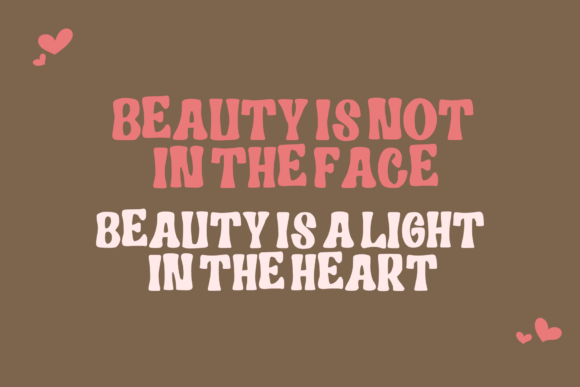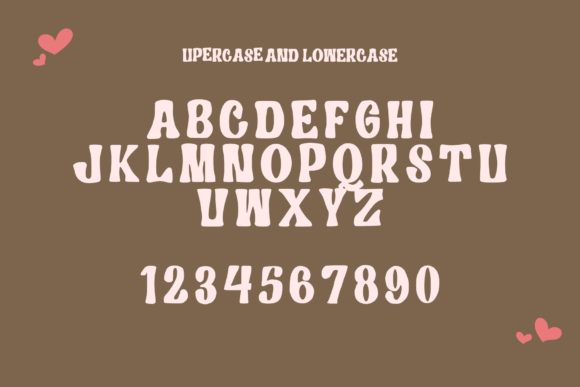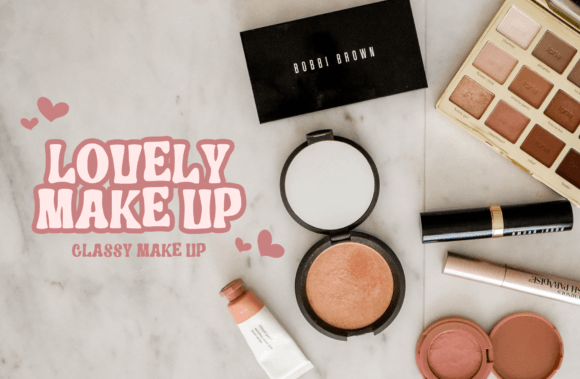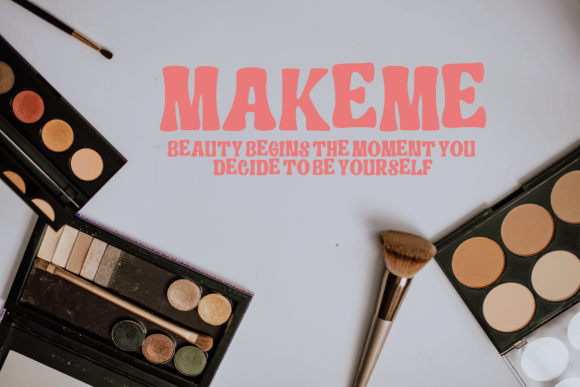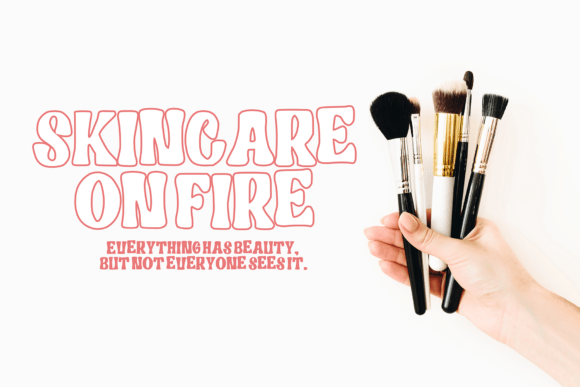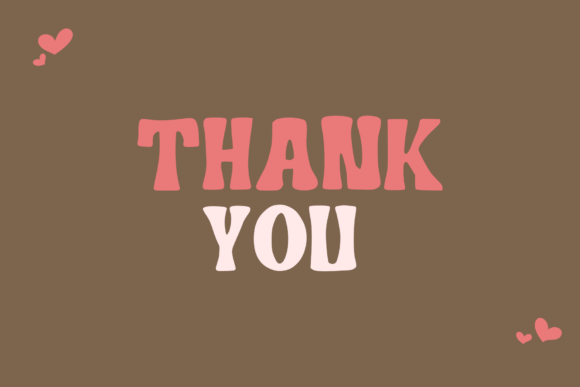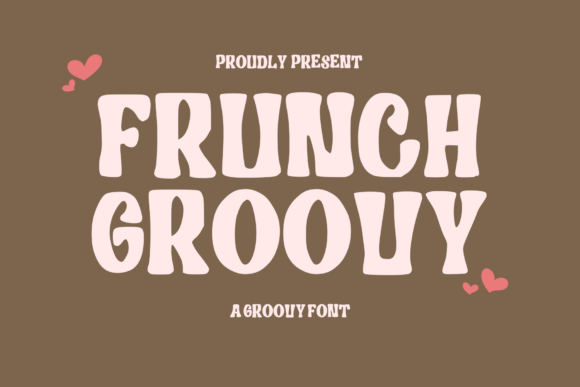
Introducing Frunch Groovy Font: Elevate Your Designs with a Bold and Captivating Style
In the world of design, fonts play a crucial role in conveying the message and aesthetic of a brand or project. With the vast array of fonts available, it can be challenging to find one that stands out from the rest. However, if you’re looking for a font that exudes elegance, sophistication, and a touch of playfulness, look no further than Frunch Groovy Font. This stunning display font is crafted with intricate details and unique shapes, creating a bold and captivating look that commands attention.
What Makes Frunch Groovy Font So Special?
Frunch Groovy Font is not just another font; it’s an experience. Its carefully crafted design makes it perfect for adding a touch of elegance and style to any design project. Whether you’re working on branding, headlines, packaging, or any other creative endeavor, Frunch Groovy Font is sure to make a lasting impression. Its unique and intricate details set it apart from other fonts, making it a standout choice for designers and crafters looking to elevate their work.
Key Features of Frunch Groovy Font
- Intricate Details: Frunch Groovy Font boasts intricate details that add depth and character to your designs.
- Unique Shapes: The font’s unique shapes create a bold and captivating look that’s sure to turn heads.
- Elegant and Stylish: Perfect for adding a touch of elegance and style to any design project.
- Versatile: Suitable for a wide range of design projects, from branding and headlines to packaging and more.
Frunch Groovy Font is a dream come true for designers and crafters looking to take their work to the next level. Whether you’re a professional designer or a hobbyist crafter, this font is sure to inspire your creativity and help you create stunning designs that leave a lasting impression.
- Pair it with Other Fonts: Experiment with pairing Frunch Groovy Font with other fonts to create a unique and visually appealing design.
- Use it for Headlines: Frunch Groovy Font is perfect for headlines and titles, where its bold and captivating style can really shine.
- Add it to Your Branding: Use Frunch Groovy Font to add a touch of elegance and style to your branding, including logos, business cards, and more.
In conclusion, Frunch Groovy Font is a stunning and eye-catching display font that’s sure to make a lasting impression. With its intricate details, unique shapes, and elegant style, it’s perfect for adding a touch of sophistication and style to any design project. Whether you’re a designer or crafter, Frunch Groovy Font is a must-have in your font collection.